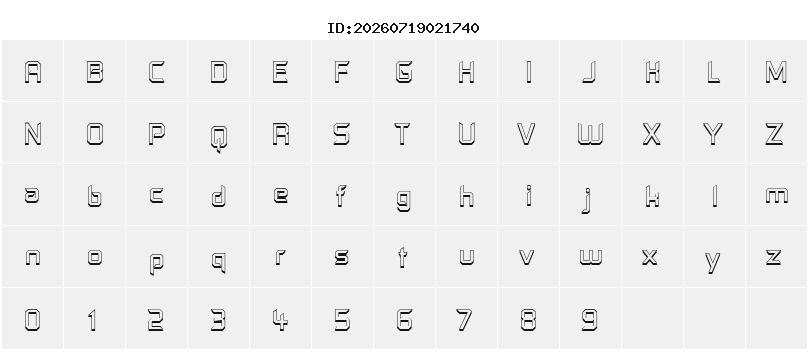
• Font Name: Control Freak Offset
• Font ID: Control Freak Offset
• Full Font Name: Control Freak Offset
• PostScript Name: ControlFreakOffset
• Designer: Graham Meade
About Control Freak Offset.ttf
Control Freak Offset.ttf is a modern, elegant sans-serif font designed for ultimate readability and visual harmony. Perfect for branding, headlines, web design, and print materials.